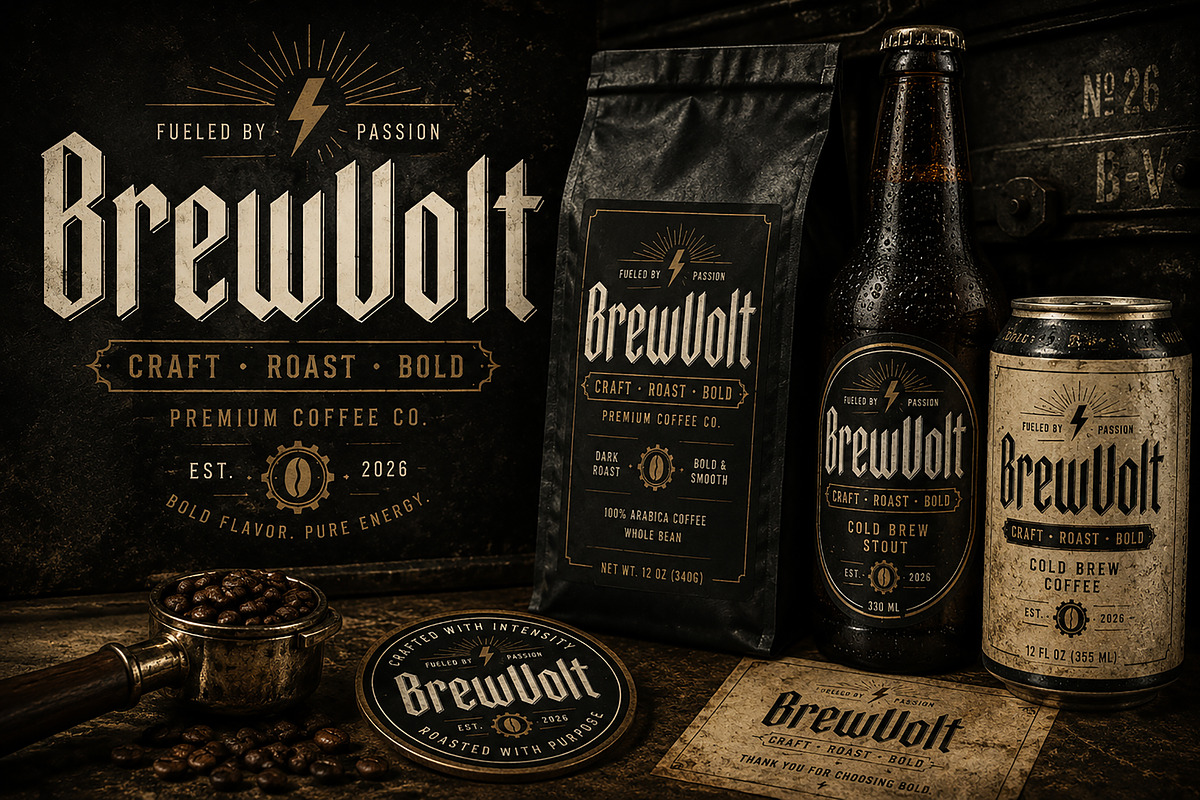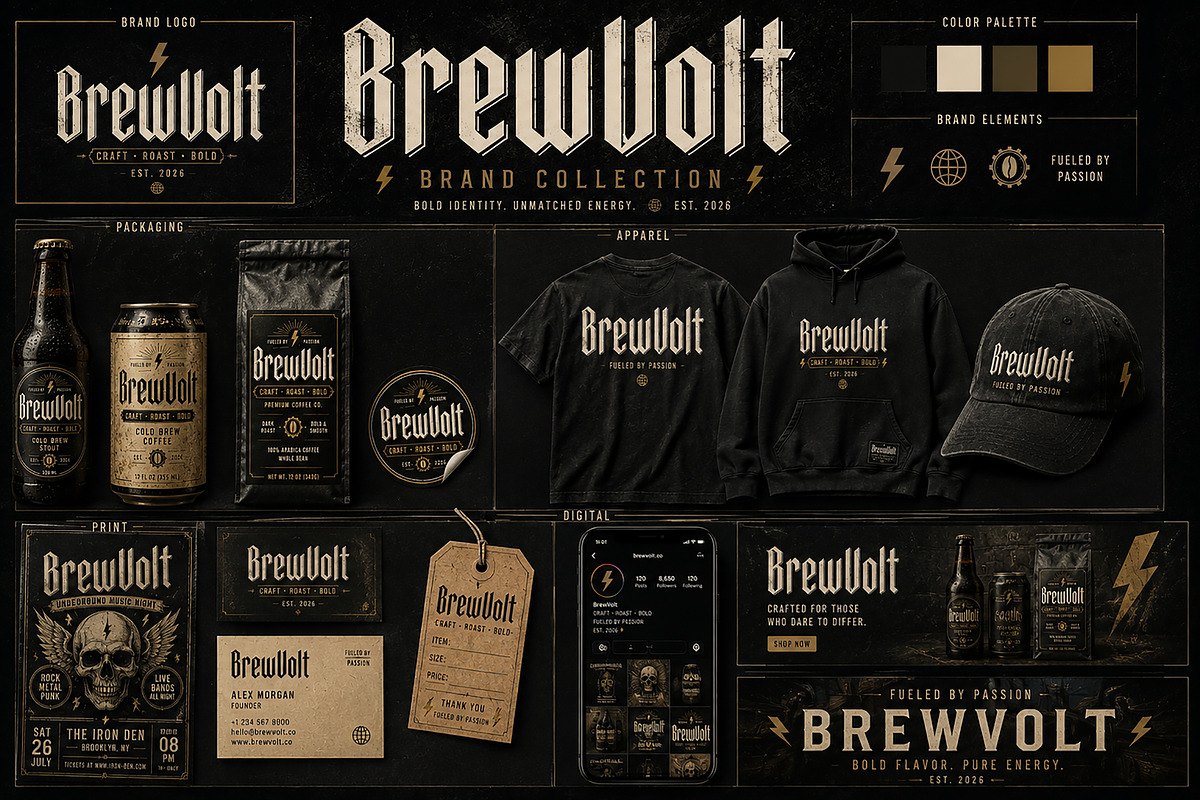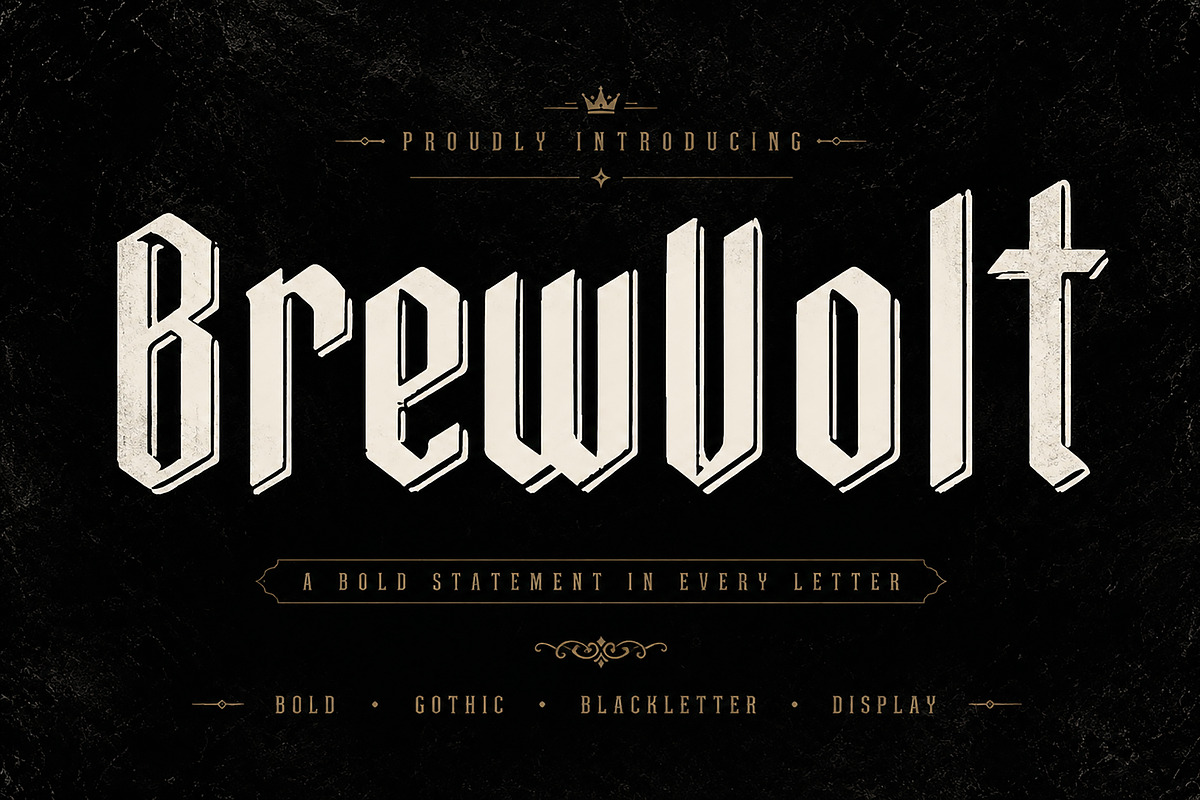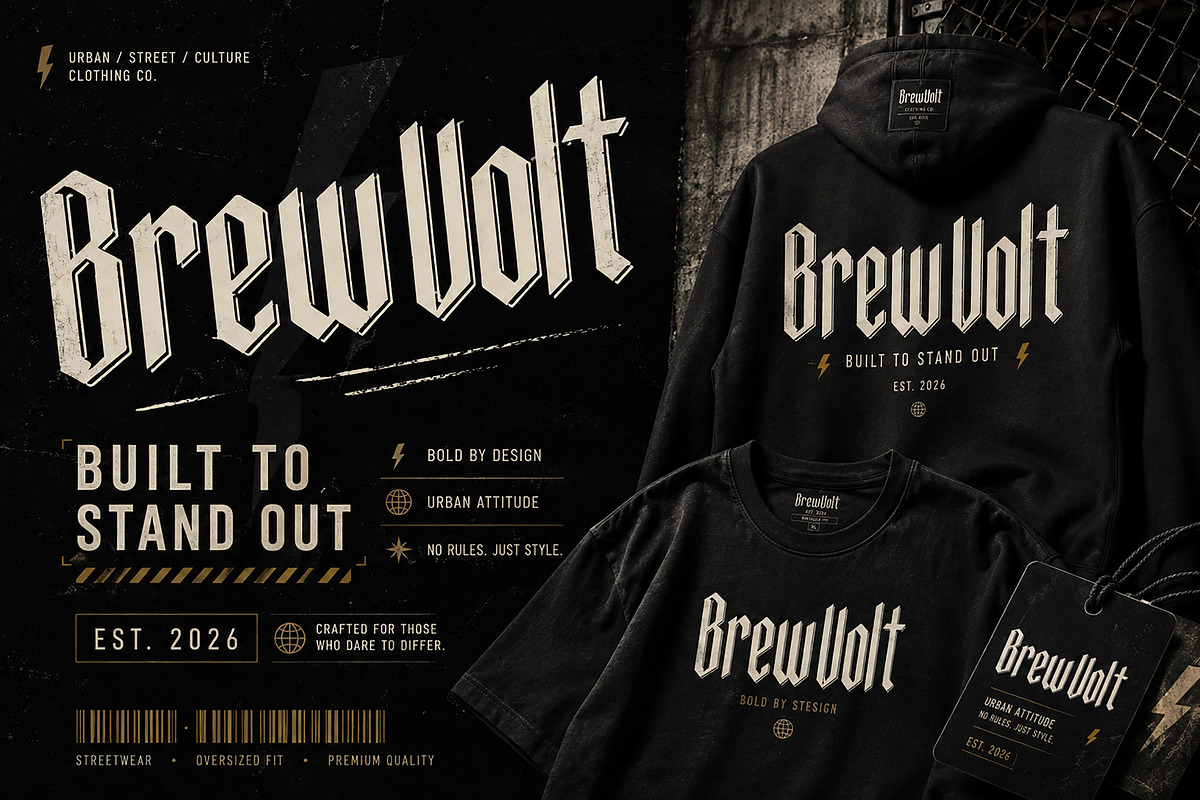
BrewVolt
BrewVolt is a bold gothic blackletter display font designed to bring a powerful, vintage-inspired character to your creative projects. With its sharp angular letterforms, dramatic vertical structure, and distinctive old-school aesthetic, BrewVolt is perfect for designs that need a strong and memorable visual identity.
Its striking style works especially well for logos, branding, streetwear, apparel, posters, album artwork, music graphics, labels, packaging, café branding, brewery-inspired designs, merchandise, badges, headlines, and editorial artwork.
Whether you're creating an edgy clothing brand, a vintage-inspired poster, a bold product identity, or dramatic promotional artwork, BrewVolt adds an unmistakable gothic presence to your typography.
Logo & Brand Identity
Streetwear & Apparel
T-Shirts & Merchandise
Gothic & Vintage Designs
Music & Band Artwork
Posters & Flyers
Coffee & Brewery Branding
Packaging & Product Labels
Badges & Emblems
Album & Cover Artwork
Editorial Designs
Headlines & Display Typography
Event & Promotional Designs
Style: Gothic / Blackletter / Display
Give your next project a bold, dark, vintage, and unforgettable typographic identity with BrewVolt.